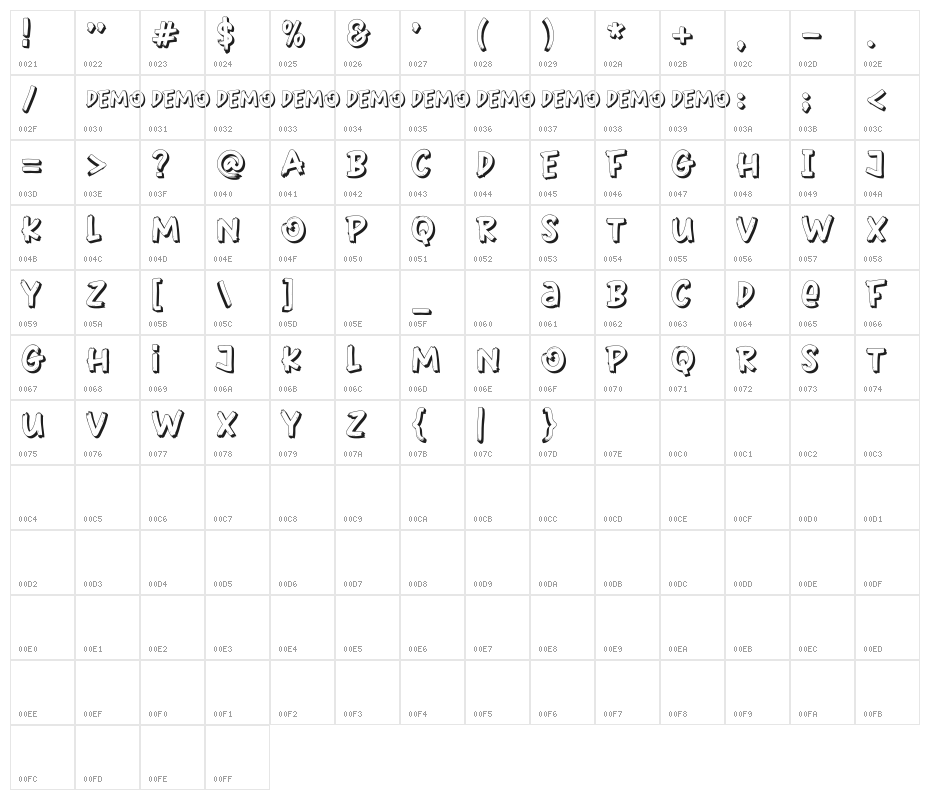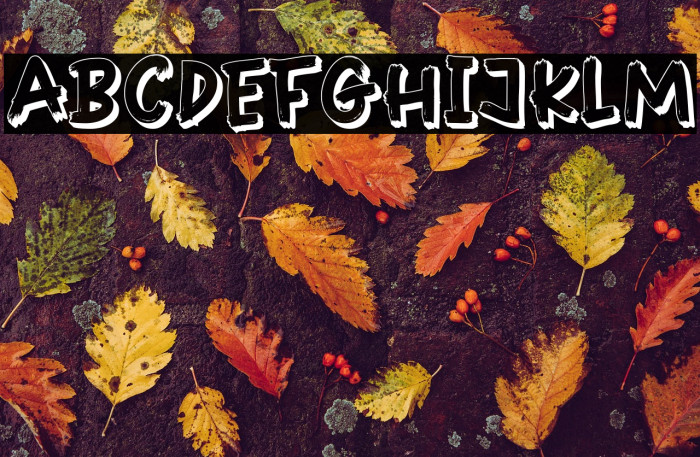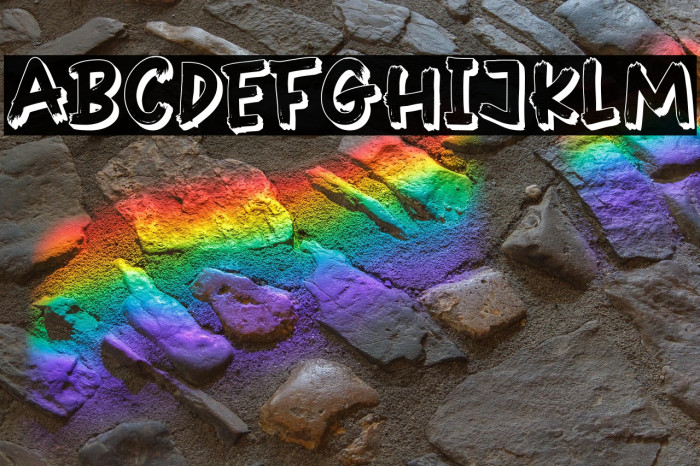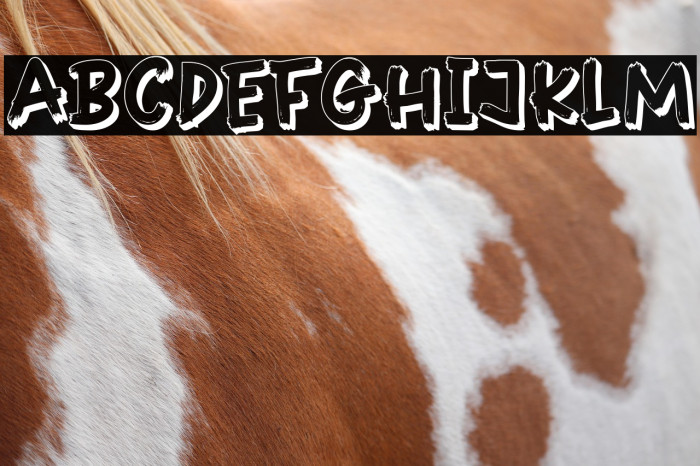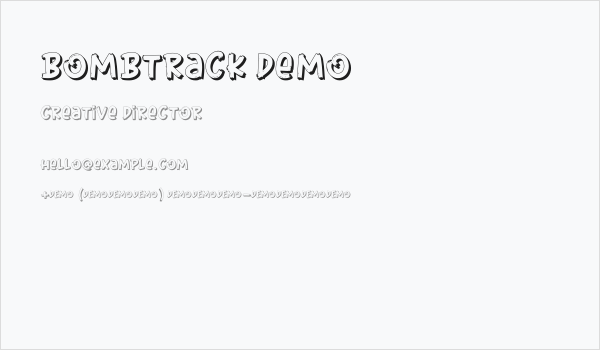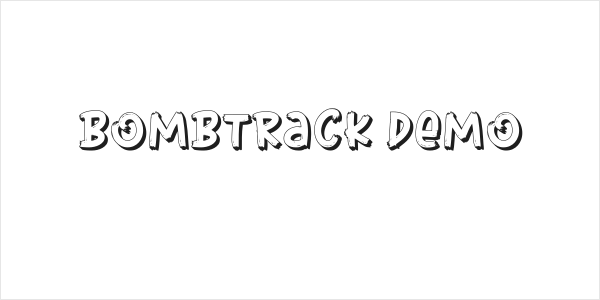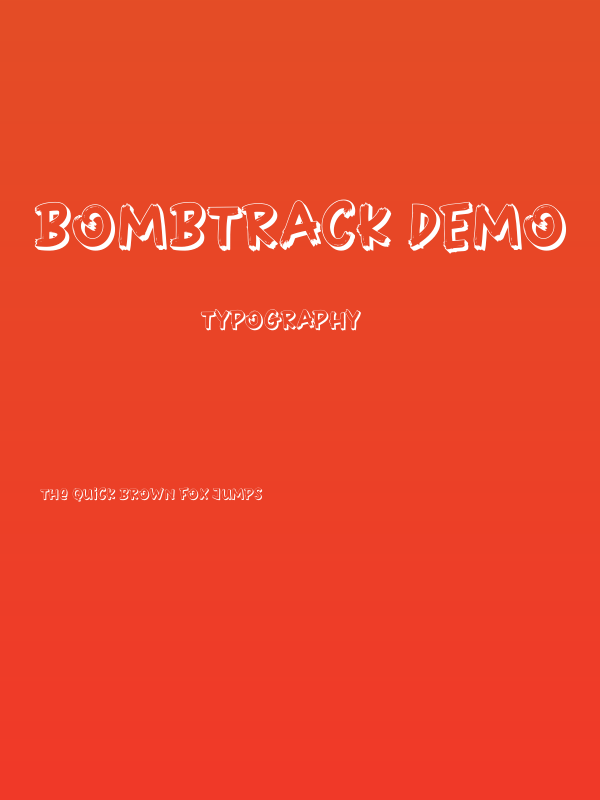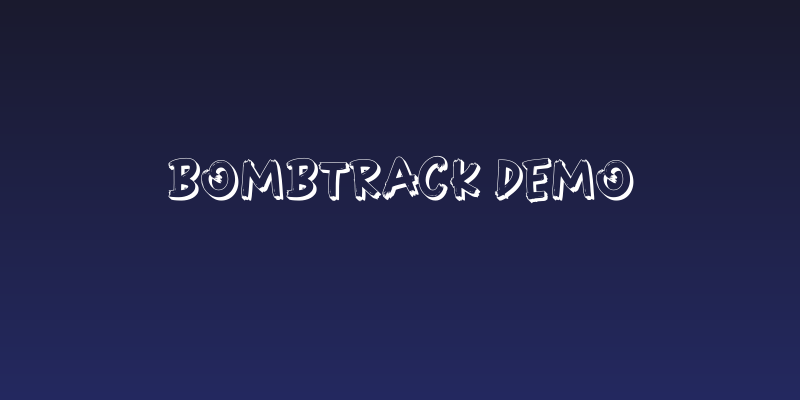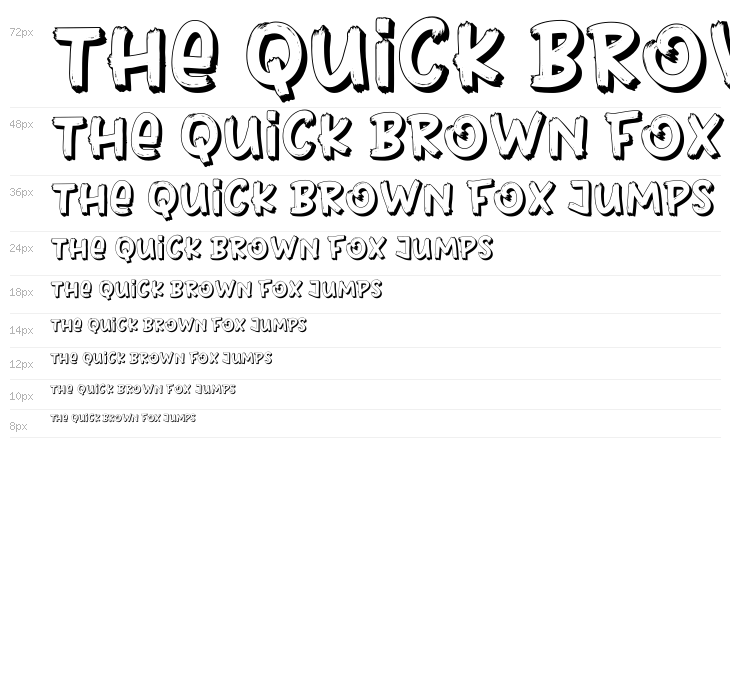
Bombtrack Demo Font
Bombtrack Demo Description
This font features a bold, graffiti-inspired style with a playful and energetic appearance. The letters are outlined with a thick black stroke, giving them a three-dimensional effect. The interior of each character is filled with a white space, creating a striking contrast against the bold outlines. The font has a hand-drawn, informal look, with irregular edges and a dynamic flow. It captures a sense of movement and spontaneity, making it ideal for projects that require a youthful and rebellious vibe. The characters are well-spaced, ensuring readability while maintaining their unique style.
| Proposed Projects | Perfect for street art designs, music album covers, event posters, and youth-oriented branding. |